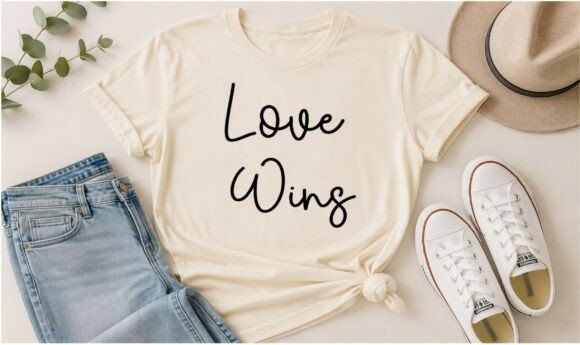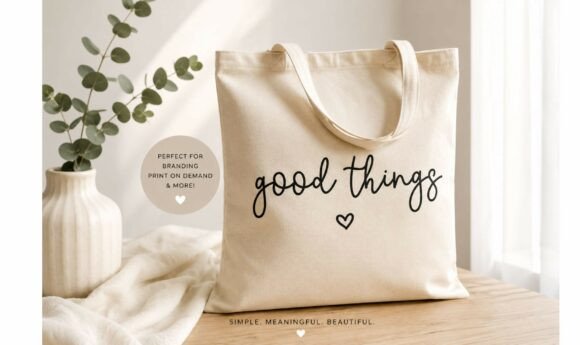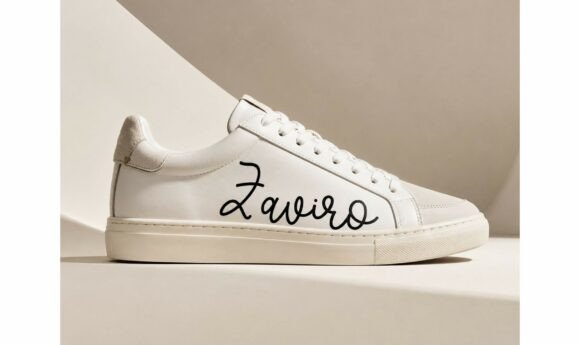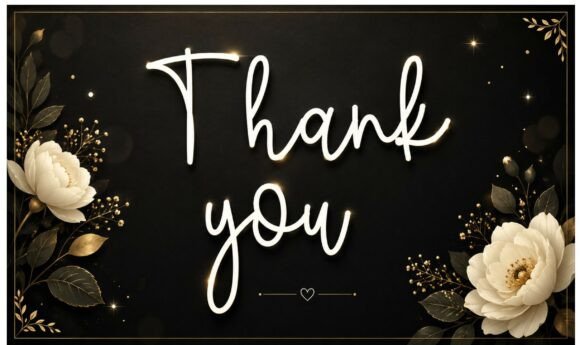
Introduction to Joyful Duo Font
Joyful Duo is a charming handwritten script font designed with a playful, soft, and friendly personality.
Its natural handwritten strokes create a warm and personal look, making it suitable for creative projects that need a sweet, elegant, and approachable touch This font works beautifully for logo design, product branding, wedding invitations, greeting cards, packaging, social media posts, thank-you cards, quotes, stickers, labels, and handmade business designs.
Joyful Duo Font offers exceptional quality and versatility, making it a valuable addition to your design toolkit. Whether you’re creating for personal projects or commercial use, Joyful Duo Font delivers professional results.